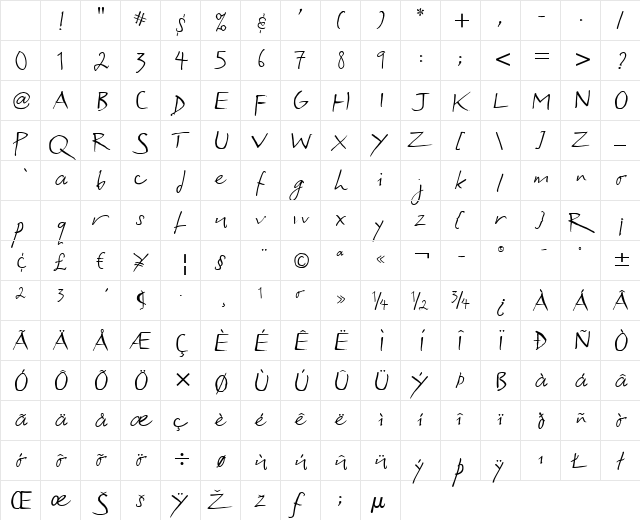
Complete Django ITC Light Italic glyph index. Displaying only characters natively supported by Django ITC Light Italic font.
Django ITC is a composed and adaptable typeface that performs quietly and consistently across a wide range of design contexts. The slanted form adds forward momentum and visual energy. Its slender proportions lend an understated elegance to any composition.